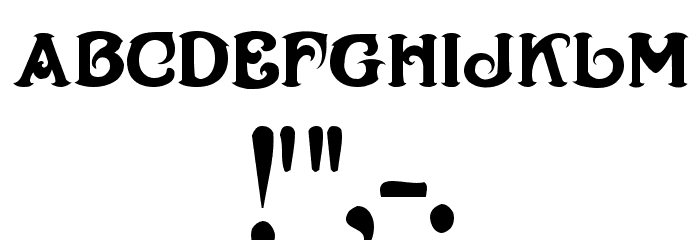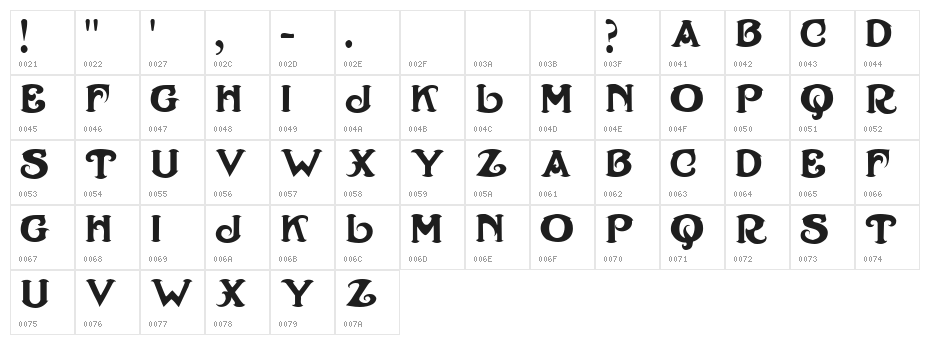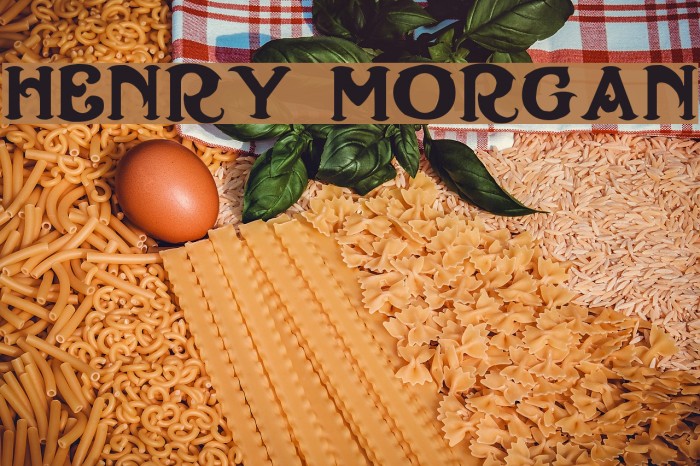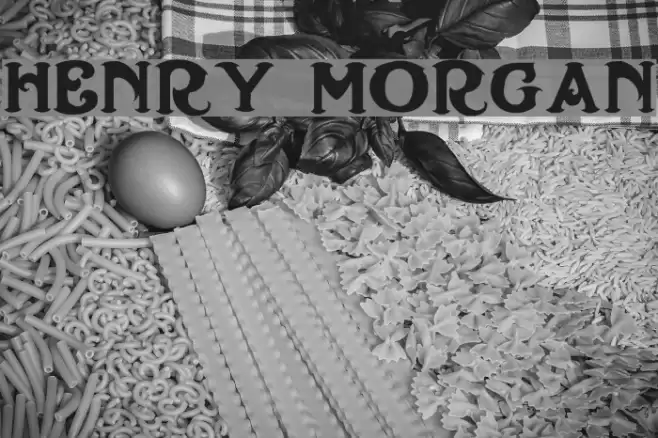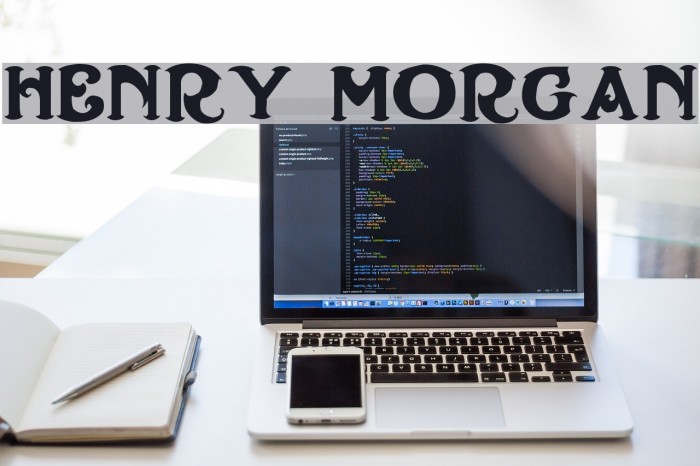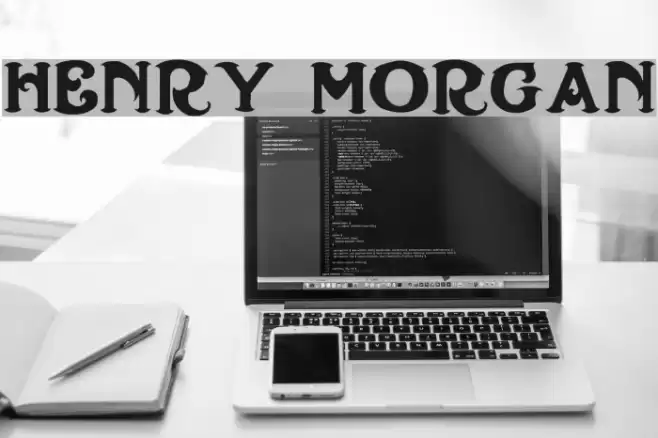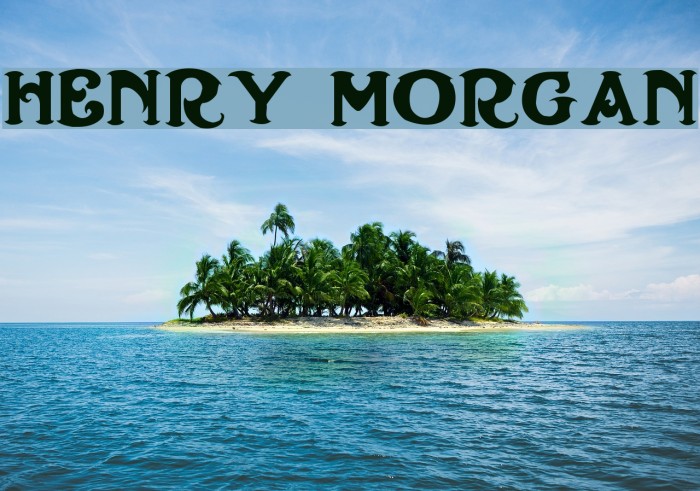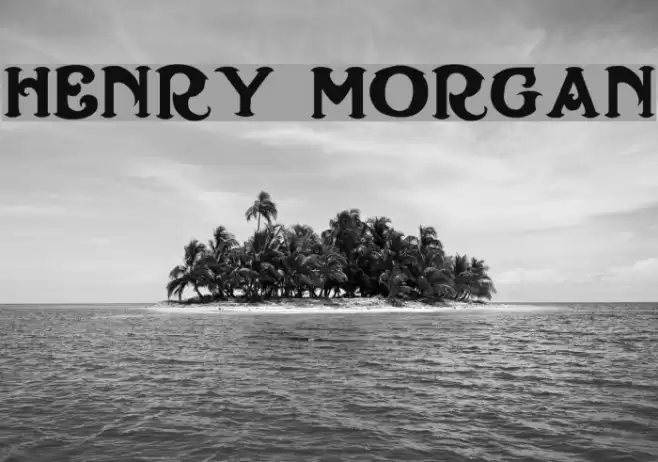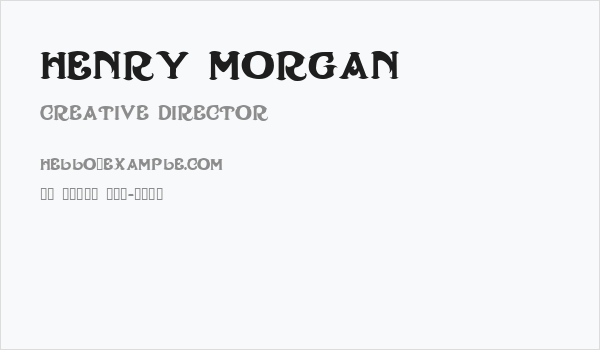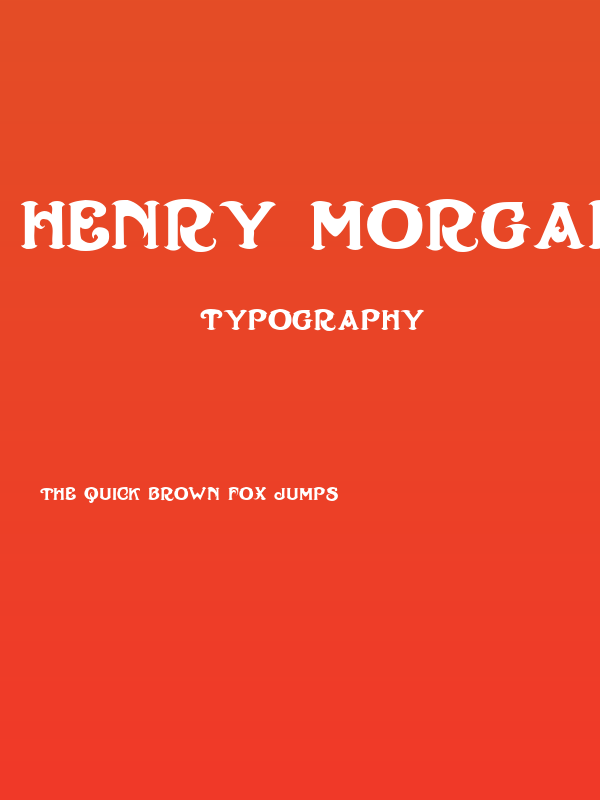
Henry Morgan Font
Henry Morgan Description
This font features a bold and decorative style with a distinct, vintage flair. The characters are designed with a unique blend of curves and sharp edges, giving them a dynamic and eye-catching appearance. The uppercase letters are particularly ornate, with intricate details that enhance their visual appeal. The lowercase letters maintain a consistent style, complementing the uppercase with their own subtle embellishments. The numbers and special characters follow the same decorative theme, ensuring a cohesive look across all elements. This font's boldness and decorative nature make it ideal for projects that require a strong visual impact.
| Proposed Projects | Ideal for vintage-themed posters, branding, book covers, and decorative signage. |